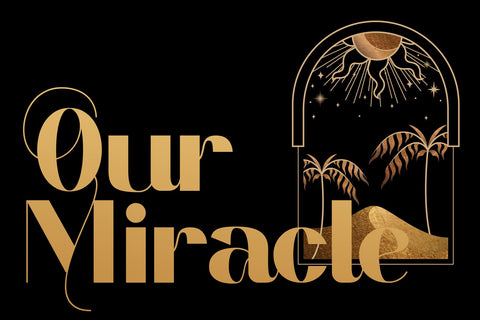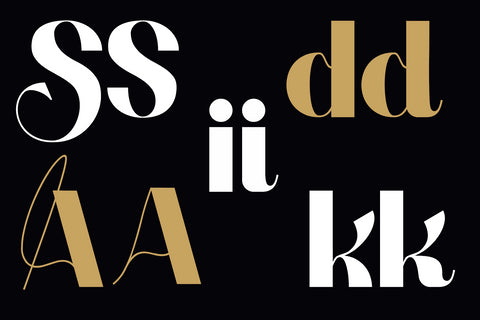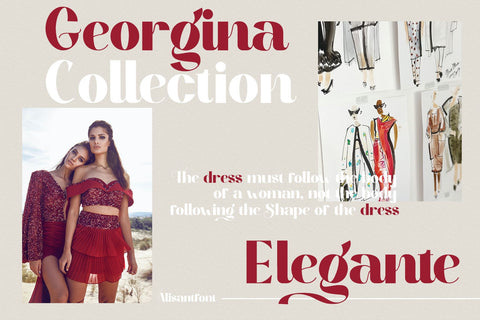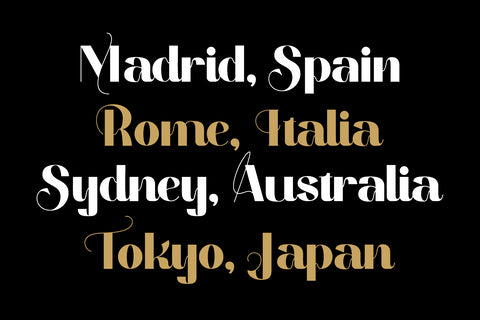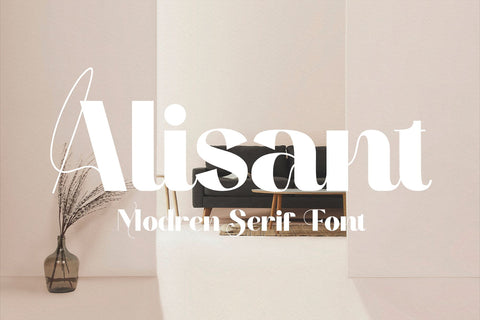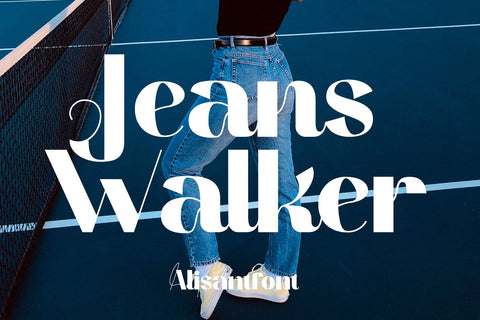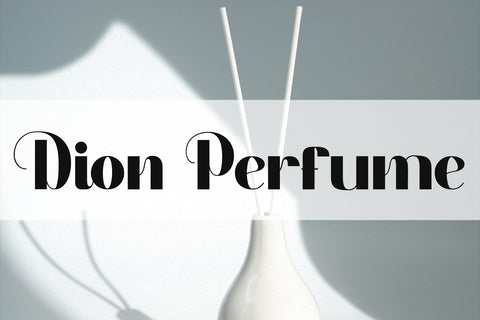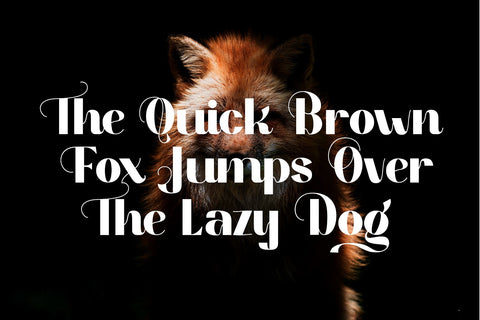
Alisant - Modern Serif Font
Alisant is a cool and stylish serif font, featuring its own unique style and modern look.
Masterfully designed to become a true favorite, this font has the potential to bring each of your creative ideas to the highest level!
This typeface is perfect for an elegant & luxury logo, book or movie title, fashion brand, magazine, clothes, lettering, quotes and more.